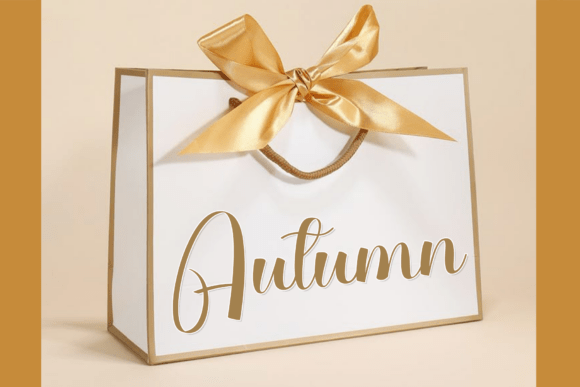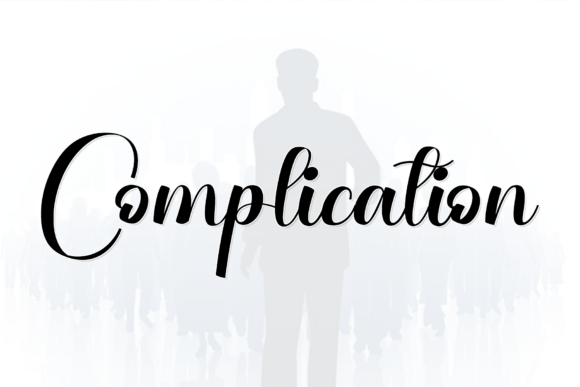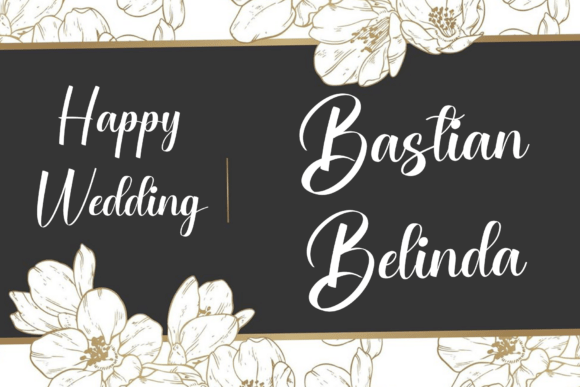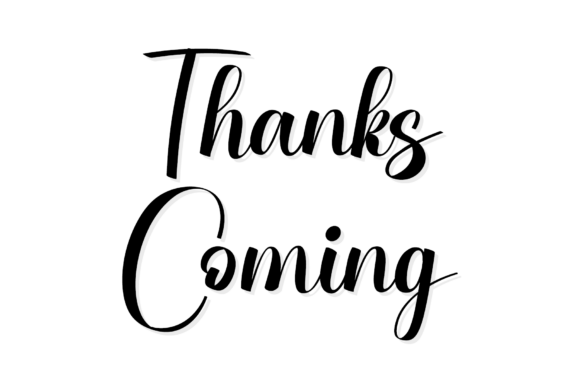
Introducing Beautylash Font: Elevate Your Brand with Sophistication and Elegance
In the world of typography, few fonts manage to strike a balance between sophistication and warmth. Beautylash Font is one such exceptional typeface that seamlessly merges a calligraphic style with an organic aesthetic, making it a premier choice for brands seeking to convey luxury, artistry, and uniqueness. In this article, we’ll dive into the distinctive features of Beautylash Font, explore its uses, and understand why it’s a favorite among designers and crafters.
The Distinctive Characteristics of Beautylash Font
Beautylash Font is characterized by its sweeping, looping ascenders that give it a rhythmic and fluid appearance. This calligraphic element brings a sense of personalized, artisanal craftsmanship to any project. The font’s design is not just about aesthetics; it’s about evoking an emotional response. The looping ascenders create a dynamic movement, making the text feel more approachable and engaging. This unique feature sets Beautylash apart from more traditional fonts and makes it perfect for brands looking to stand out.
Warmth and Organic Aesthetic
While Beautylash boasts a sophisticated calligraphic style, it also carries a warm, organic feel. This blend of elegance and coziness makes it incredibly versatile, suitable for a wide range of applications from artisanal food branding to upscale lifestyle marketing. The warmth of the font makes it relatable and inviting, helping brands connect with their audience on a more personal level.
Applications of Beautylash Font
Given its unique characteristics, Beautylash Font finds its application in various creative fields:
- Artisanal Food Branding: For businesses that focus on handcrafted, gourmet, or specialty foods, Beautylash offers a typographic solution that communicates quality, care, and uniqueness.
- Boutique Product Packaging: Small-batch, handmade, or luxury products can benefit from Beautylash’s elegant and personalized feel, enhancing the perceived value of the product.
- Upscale Lifestyle Marketing: Brands that cater to a high-end audience can leverage Beautylash to convey sophistication, luxury, and a bespoke experience.
- Creative Editorial Titles: Beyond branding and packaging, Beautylash can also be used in editorial design, such as in magazines, blogs, or books, to add a touch of elegance and artistry to titles and headings.
Why Designers and Crafters Love Beautylash
Beautylash Font has gained popularity among designers and crafters for several reasons:
- Versatility: Its ability to fit into various design contexts, from digital to print, makes it a valuable addition to any designer’s toolkit.
- Emotional Connection: The font’s unique style helps create an emotional connection with the audience, making it ideal for brands looking to build a strong, personal identity.
- Ease of Use: Despite its sophisticated look, Beautylash is easy to read and works well in both headings and body text, providing flexibility in design.
Beautylash Font stands out in the world of typography for its elegant calligraphic style, sweeping ascenders, and warm aesthetic. Its versatility and emotional resonance make it a top choice for designers and crafters looking to add a touch of sophistication and artistry to their projects. Whether you’re working on artisanal food branding, boutique product packaging, upscale lifestyle marketing, or creative editorial titles, Beautylash Font offers a unique typographic solution that can elevate your brand and connect with your audience on a deeper level.
Incorporating Beautylash into your design projects can significantly enhance their visual appeal and emotional impact. As you explore the possibilities with this beautiful font, you’ll discover new ways to convey your brand’s story and values, making it an indispensable part of your creative process.